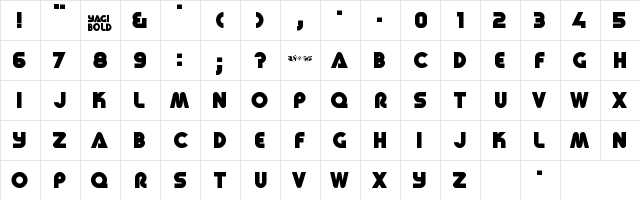
DXS Yagi Bold Regular Font Preview
DXS Yagi Bold Regular
Design Context for DXS Yagi Bold Typeface
DXS Yagi Bold takes a measured approach to typography — its balanced proportions and neutral character make it a reliable workhorse for both digital and print work. Its bold stroke weight gives it real presence on the page.